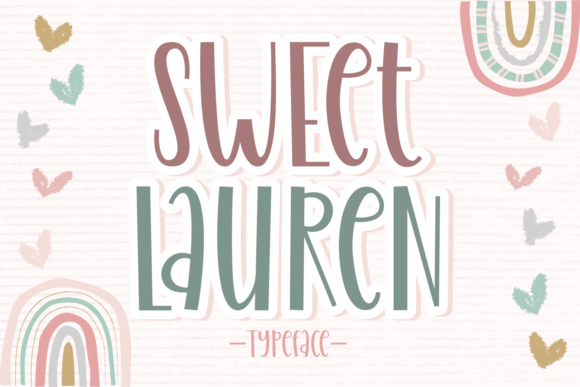
Sweet Lauren is a cute and playful display typeface. This thin and tall font is perfect for Valentine cards, birthday invitations, quotes, covers, posters, branding, and logos.